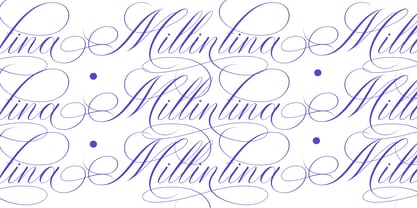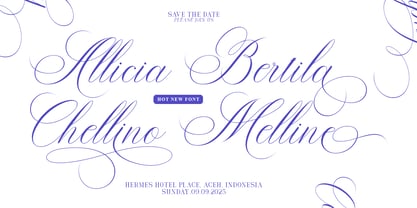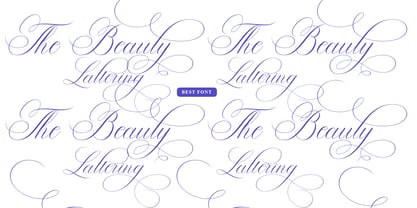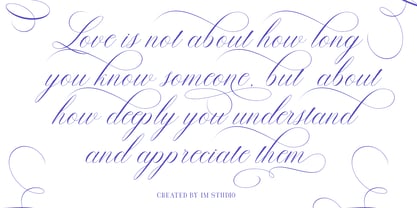
Mellintina Calligraphy
by IM Studio
The Mellintina Calligraphy Font Family was designed by Ikhsan Maulana and published by IM Studio. Mellintina Calligraphy contains 1 styles.
Mellintina Calligraphy is a calligraphy font that comes with beautifully transformed characters, a kind of classic decorative copper font with a modern touch, designed with high detail to bring a stylish elegance. Mellintina Calligraphy appeals as a typeface that is smooth, clean, feminine, sensual, glamorous, simple and very easy to read, because there are many luxurious letter connections. I also offer a number of decent style alternatives for many letters. The classic style is perfect for application in various formal forms such as invitations, labels, restaurant menus, logos, fashion, makeup, stationery, novels, magazines, books, greeting/wedding cards, packaging, labels or any type of advertising purposes.
Designers: Ikhsan Maulana
Publisher: IM Studio
Foundry: IM Studio